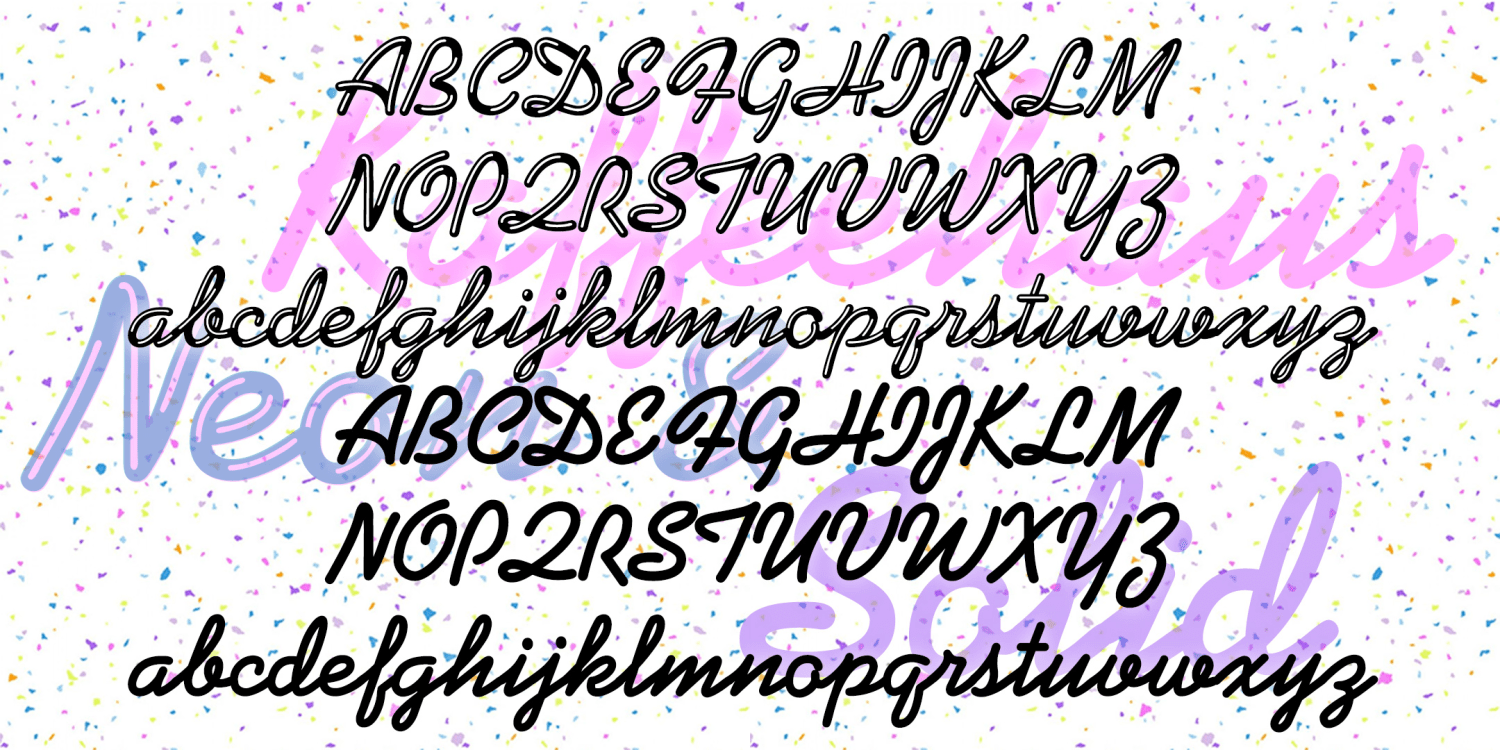
Kaffeehaus
KAFFEEHAUS NEON looks like sleek retro neon cursive, fully linked with highlights and round corners. And there's a Solid version that you can layer with the Neon in an accent color, or use separately perhaps with your own effects.
The basic letter forms were inspired by the classic script font Kaufman.
The Kaffeehaus font family includes 332 glyphs.